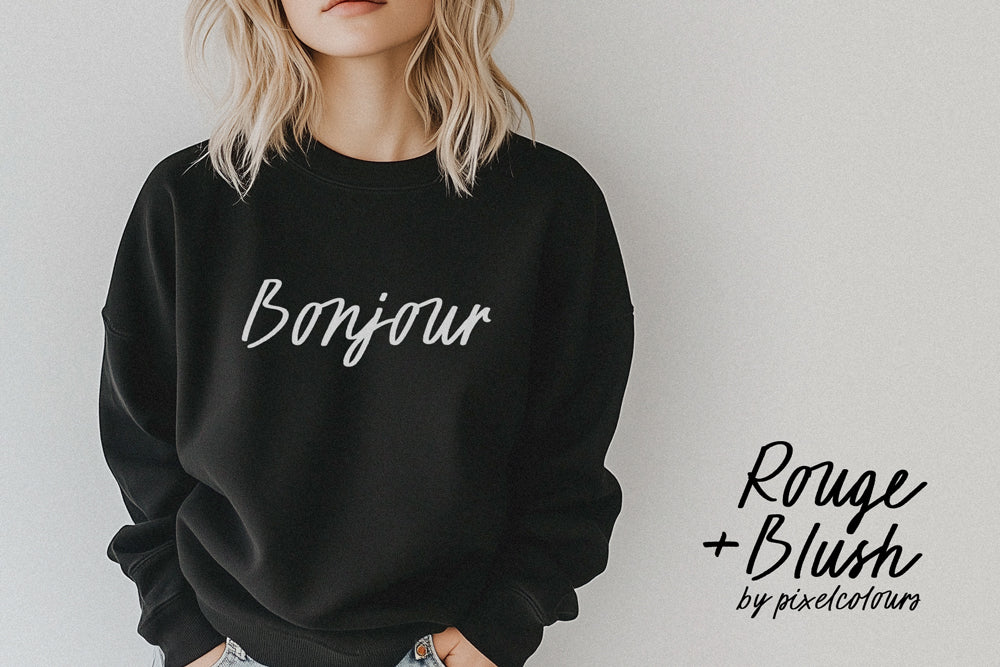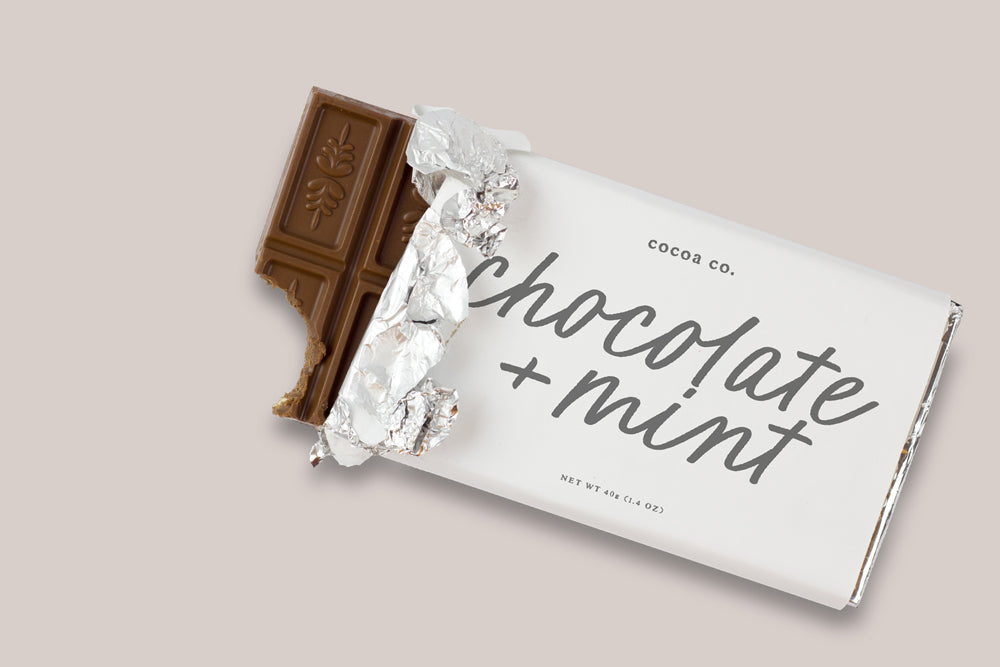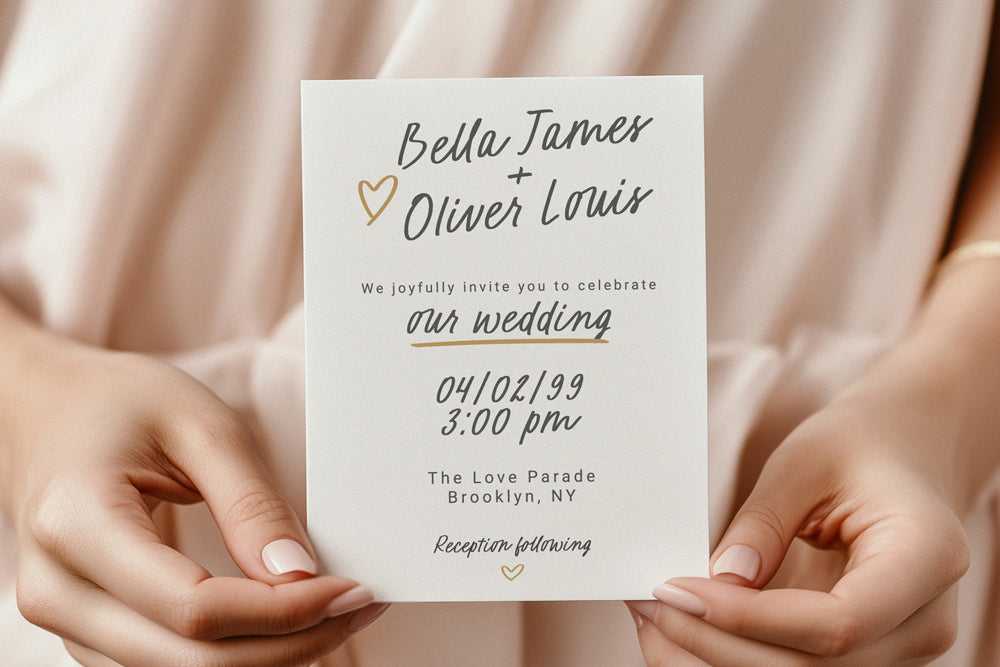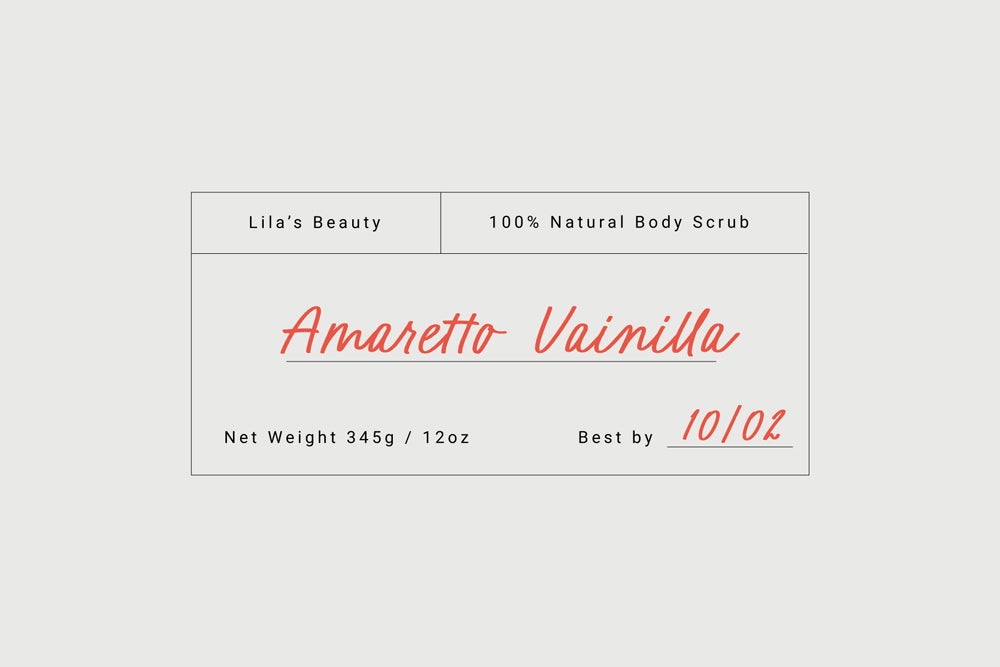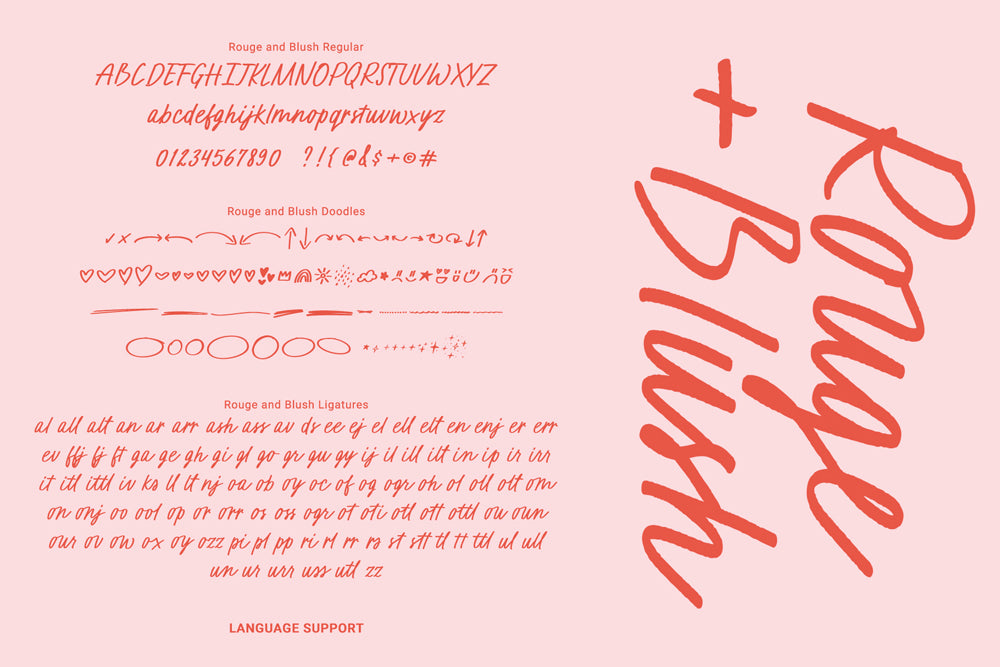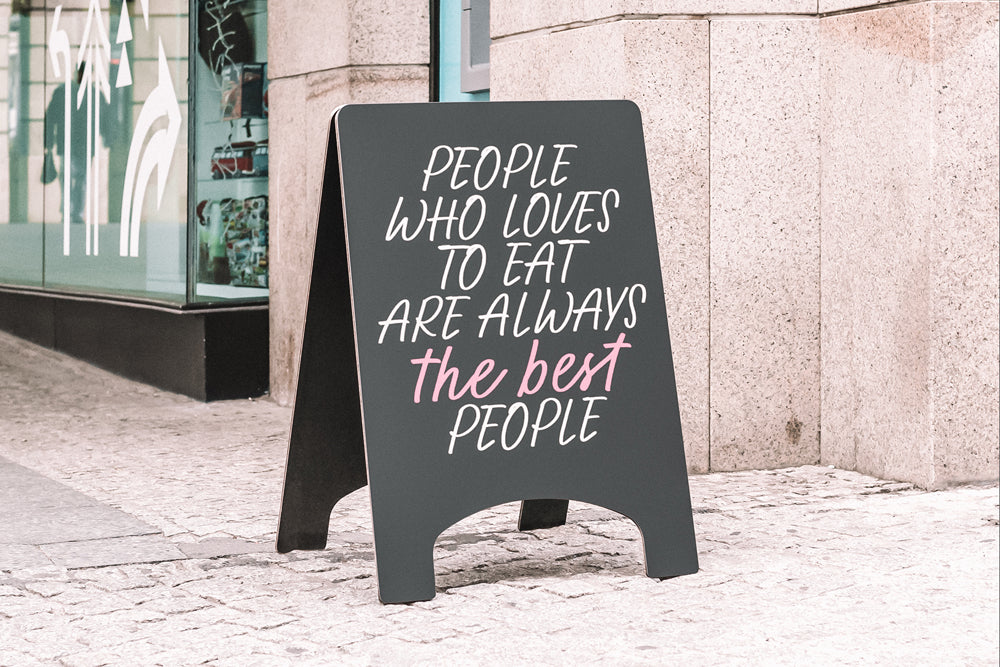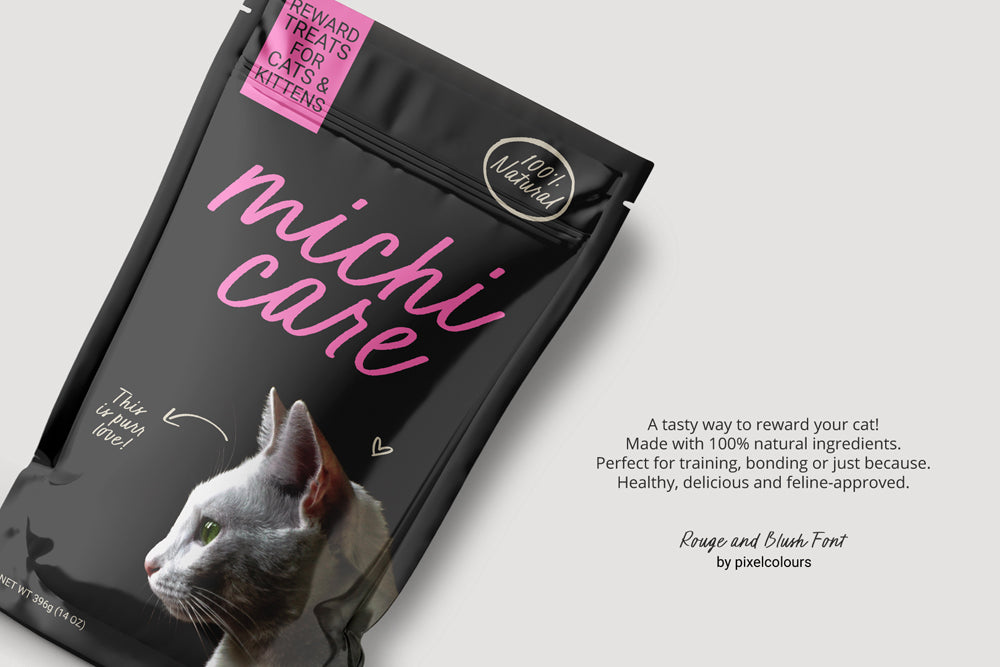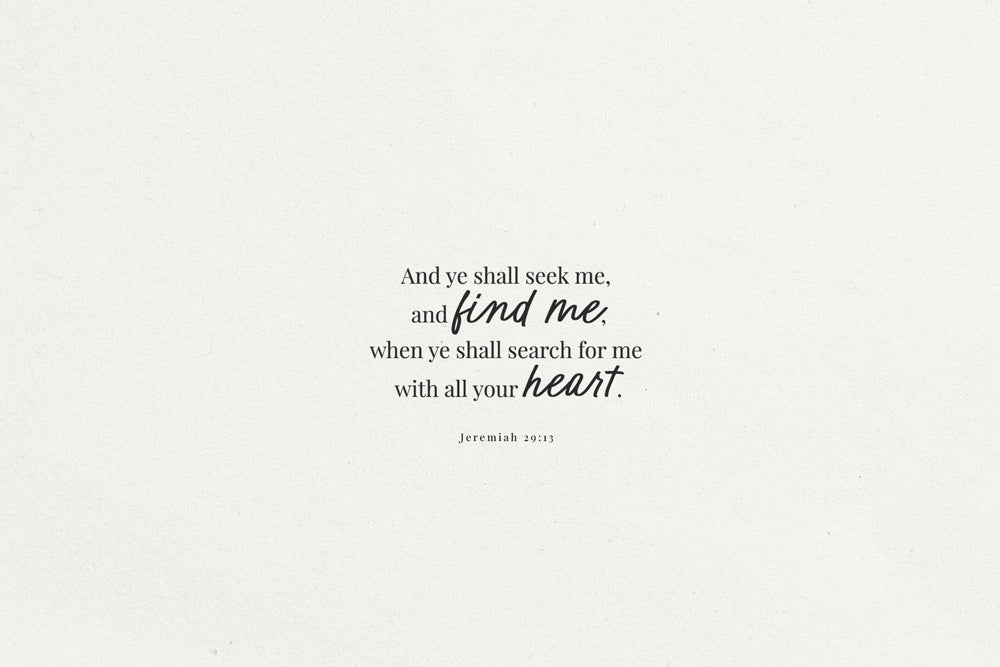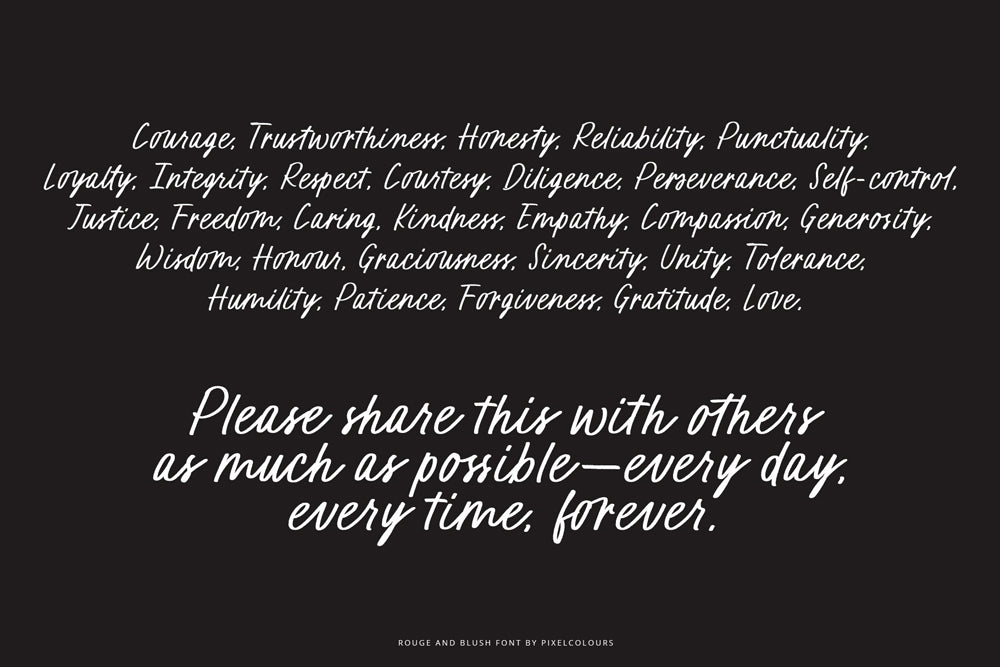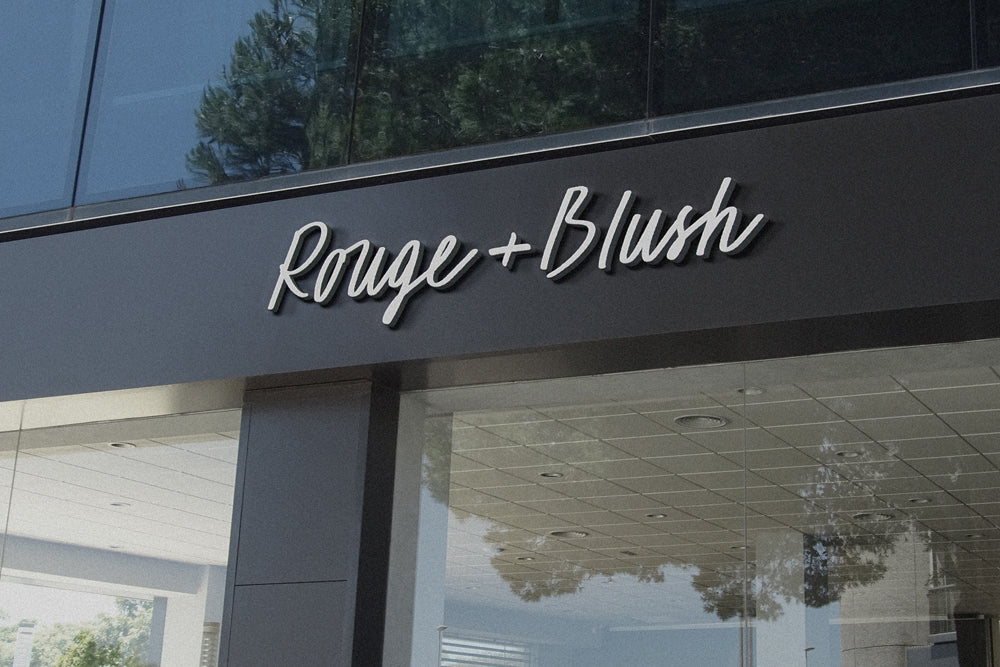
Rouge and Blush Script Font
Rouge and Blush is a charming handwritten script font with an inky style and an imperfect texture that enhances its organic feel; ideal for adding personality and a playful touch to any design. Whether you're working on a branding project, a modern wedding invitation, or a stylish quote, Rouge and Blush brings a unique and casual style to your work.
Whether used as a display font or for short body text, this typeface delivers clean and modern results. It supports OpenType features, offering smooth, natural letter connections with beautiful ligatures. It also includes an extra doodles font with 70 cute illustrations perfect for decorating your designs.
Rouge and Blush is perfect for:
- Wedding Invitations
- Branding & Logo Design
- Quotes & Typography Art
- Greeting Cards & Invitations
- Social Media Graphics
- Blog Designs
- Custom Apparel & Merchandise
- DIY Crafts & Stationery
- Rouge and Blush Regular: The textured script font with OpenType ligatures for smooth, elegant connections between letters.
- Rouge and Blush Doodles: A playful font including a collection of 70 cute hand-drawn illustrations, like hearts, arrows, lines, and fun symbols, perfect for adding extra charm to your designs.
- Uppercase, lowercase, numbers and punctuation.